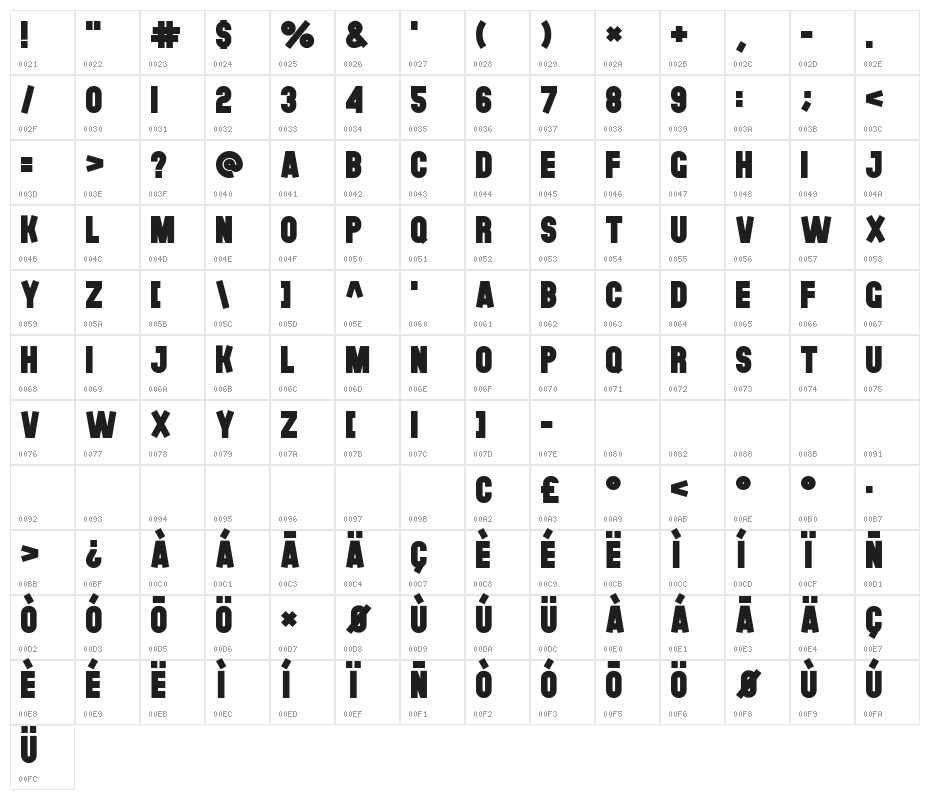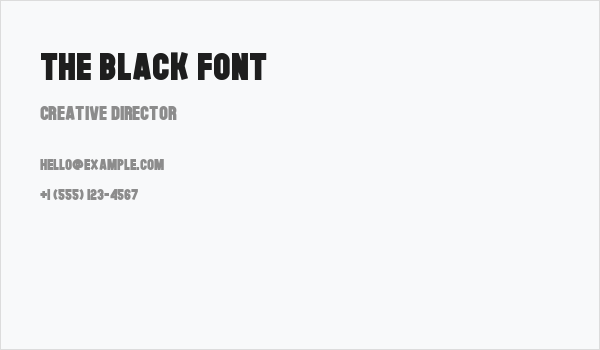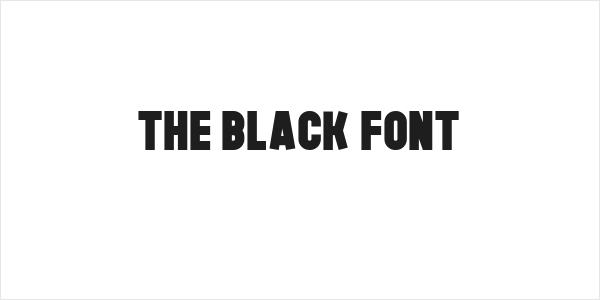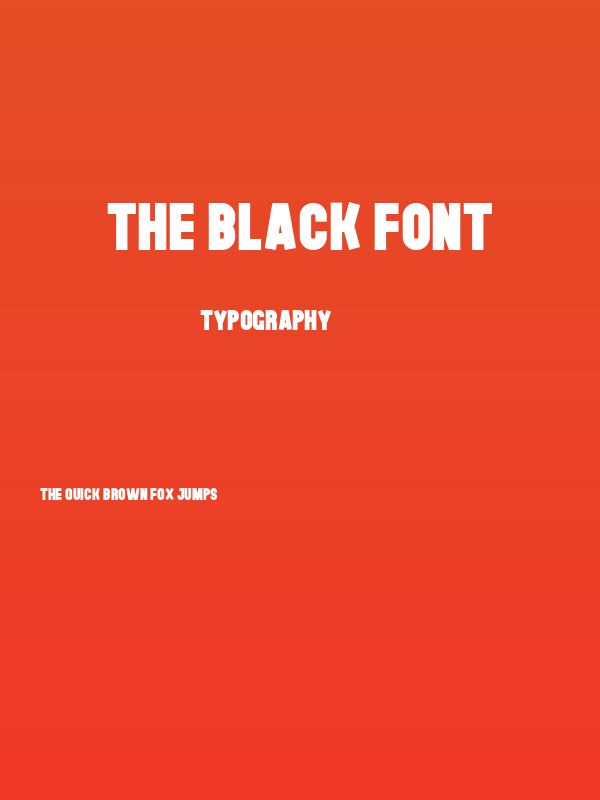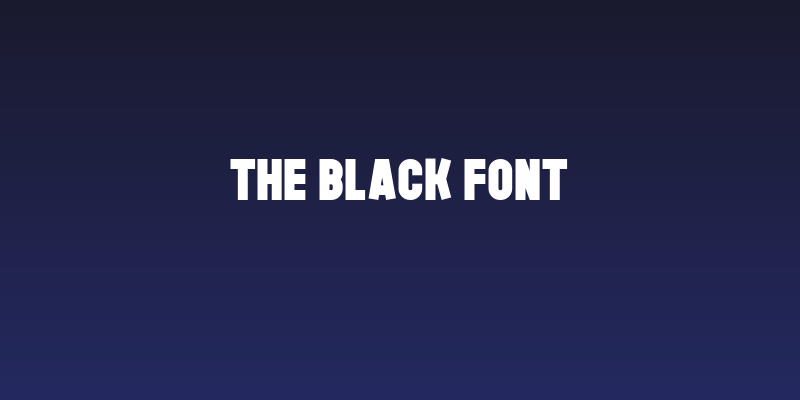
The Black Font Font
The Black Font Description
This font is characterized by its bold and impactful presence, featuring thick, uniform strokes that convey strength and authority. The uppercase and lowercase letters are designed with a consistent weight, providing a cohesive look across all characters. The numbers and special characters maintain the same boldness, ensuring readability and emphasis. The overall design is straightforward, with minimal decorative elements, making it suitable for attention-grabbing headlines and statements. Its strong visual impact is ideal for projects that require a commanding and assertive typeface.
| Use Case | Headlines, Posters, Banners |
| Proposed Projects | Ideal for headlines, posters, banners, and any design requiring a strong, assertive typeface. |